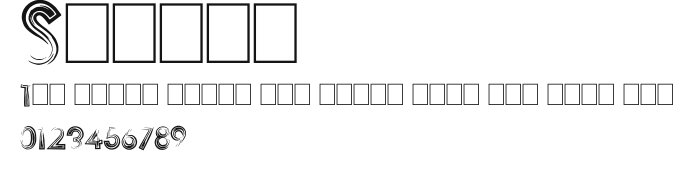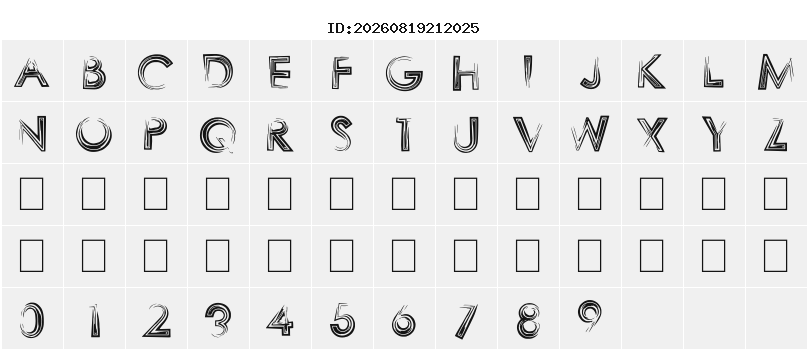
Sharpy Preview
• Font Name: Sharpy
• Full Font Name: Sharpy
• Version: Version 1.00 December 29, 2010, initial release
• PostScript Name: Sharpy
• Character Count: 50
About Sharpy.ttf
Sharpy.ttf is a modern, elegant sans-serif font designed for ultimate readability and visual harmony. Perfect for branding, headlines, web design, and print materials.